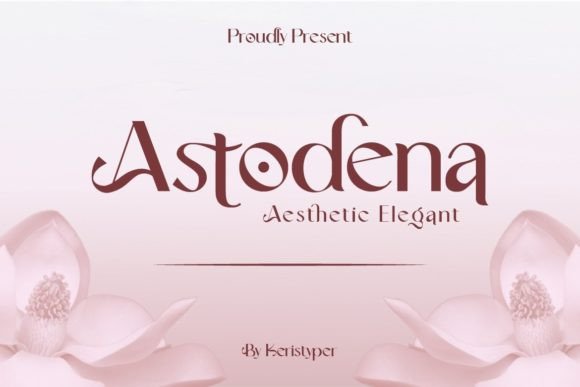
Meet Astodena Font, the Sans Serif Champion!
In a world clamoring for distinction, Astodena Font emerges as your secret weapon, a sans serif font that's an epitome of elegance and aesthetics. It's a font that speaks volumes, transforming ordinary words into captivating expressions.
Astodena Font: A Masterpiece of Simplicity and Grace
Astodena Font's clean lines and unpretentious style make it the perfect choice for those seeking a font that's both sophisticated and understated. Its effortless simplicity lends a touch of class to any design project, making your words shine without overpowering them.
Beyond Its Beauty, a Realm of Functionality
Astodena Font's versatility is its true superpower. This font is a chameleon, seamlessly adapting to a myriad of design applications. From crafting logos that exude professionalism to creating social media posts that pop, Astodena Font effortlessly elevates your designs. Its legibility, even in smaller sizes, makes it a favorite for movie titles, book covers, and extended text passages.
The Perfect Partner for Your Creative Endeavors
Whether you're a seasoned graphic designer or just starting your creative journey, Astodena Font is your perfect companion. Its user-friendly nature makes it accessible to all, while its ability to transform ordinary text into captivating expressions will leave you in awe.